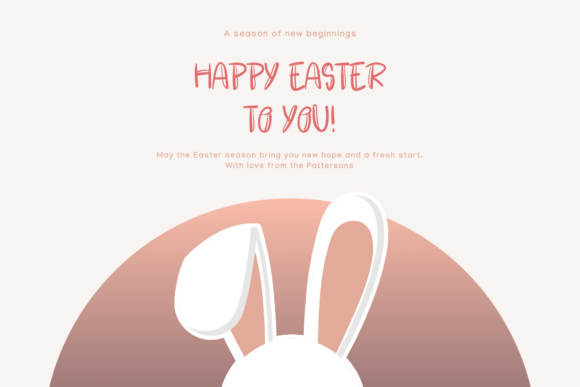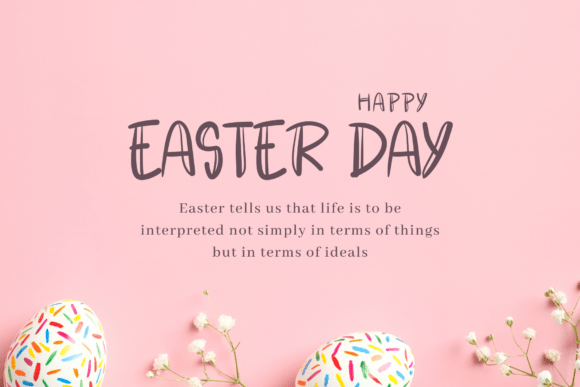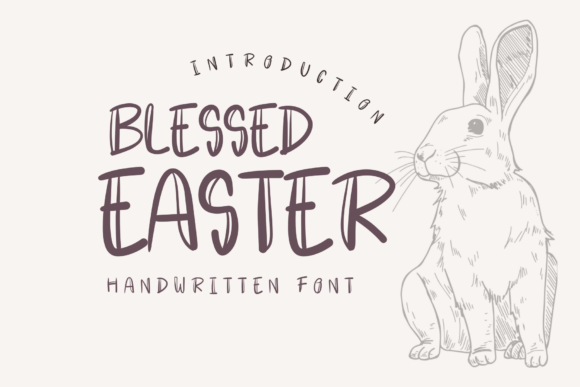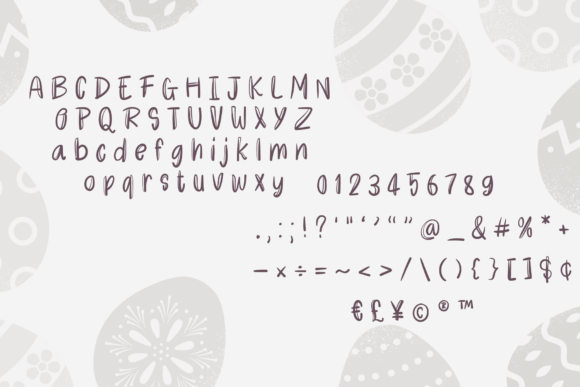
Blessed Easter Font: A Cute Handwritten Font for Cricut & DIY
About the Blessed Easter Font
Introducing the Blessed Easter Font, a beautifully crafted typeface designed to elevate your creative projects. Blessed Easter is a handwritten fonts. You can use it for taking notes, writing a diary, or making greeting cards. However, you can still use it for other designs, such as banners, content, mugs, cards, shirts, stationery, social media posts, and more!